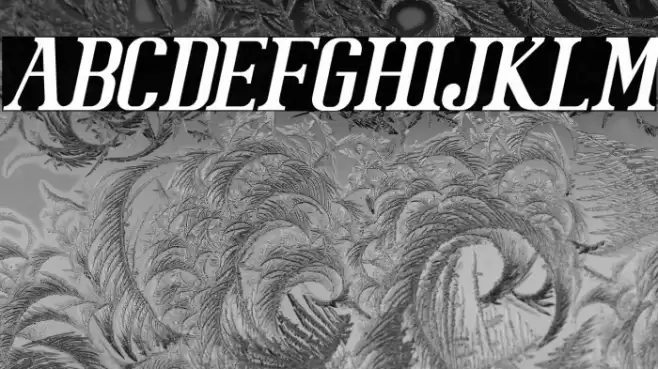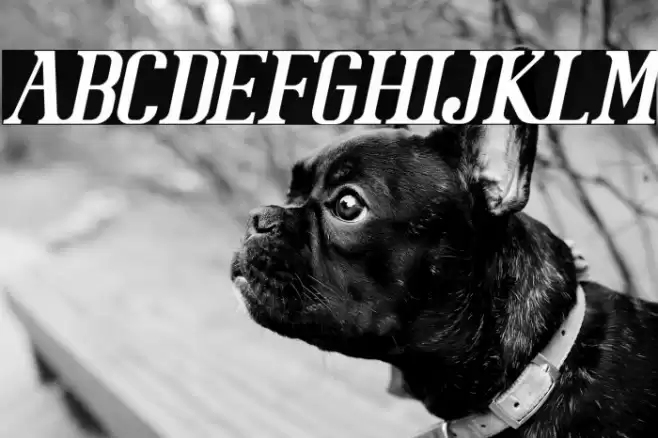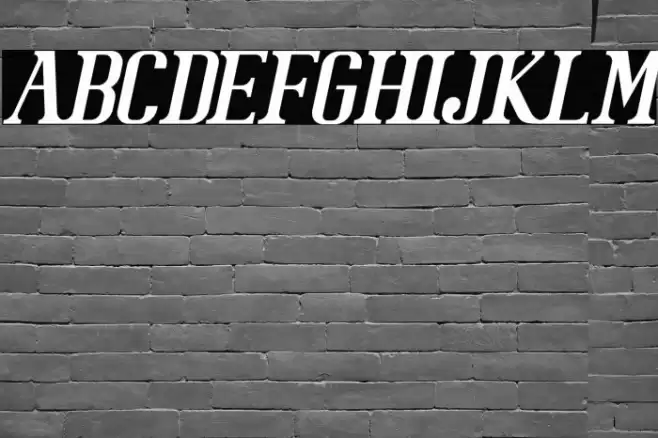
BataviaGlamoreBOLDITALIC-BoldIt Font
BataviaGlamoreBOLDITALIC-BoldIt Description
This font features a bold and italicized style with a strong presence. The uppercase letters are tall and slightly condensed, giving a sense of elegance and authority. The lowercase letters maintain a consistent flow with smooth curves and a slight slant, enhancing the italic effect. The numerals are robust and align well with the overall boldness of the font. The special characters are designed to match the bold and italic style, ensuring consistency across all glyphs. This font is well-suited for projects that require a touch of sophistication and impact.
A bold, italicized font with a strong, elegant presence from Uncategorized fonts.